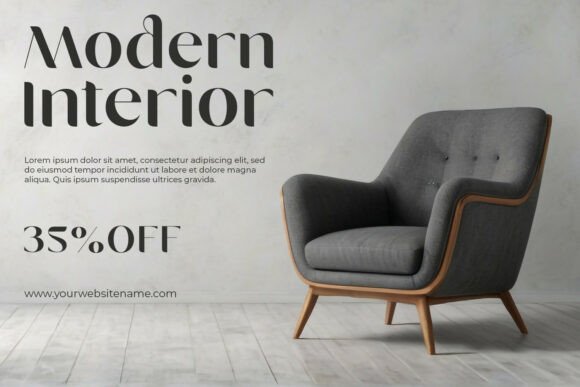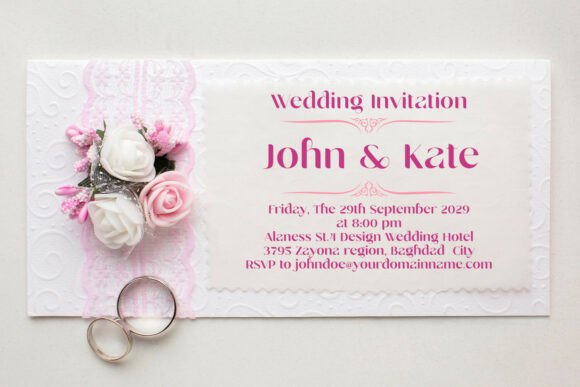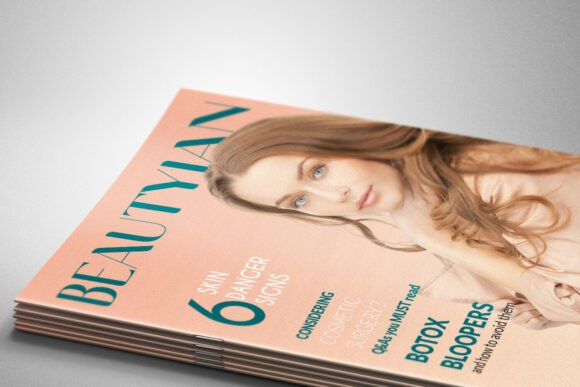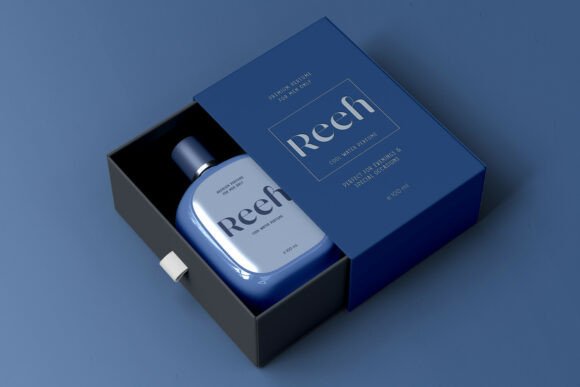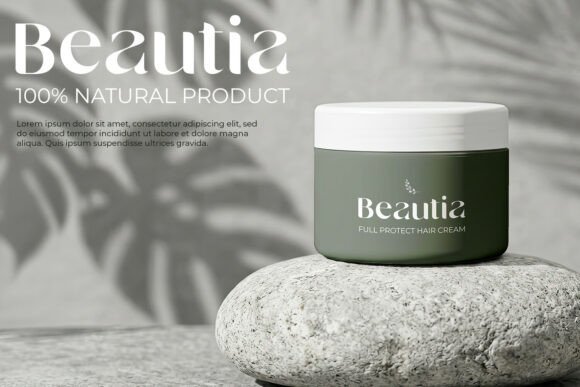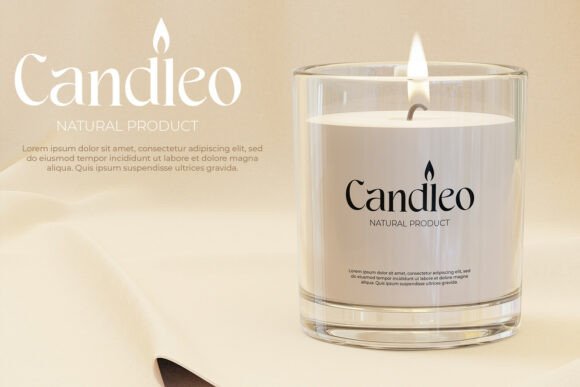
I still remember the frustration of working on a project for a high-end fashion client, searching for a font that exuded luxury and sophistication. The design brief called for a typeface that was both grounded and ethereal, but everything I tried seemed to fall flat. That was until I stumbled upon Avena, a serif font that redefined modern luxury. In this article, I’ll share my experience with Avena, its features, and how to make the most of this stunning typeface.
What is Avena?
Avena is a sophisticated serif font designed for those who want their branding to feel both luxurious and refined. Its elegant proportions and innovative serif details provide a high-end “boutique” aesthetic that is perfect for fashion-forward designs. Whether you’re crafting a minimalist logo or a stunning magazine header, Avena delivers a professional, polished presence that feels timeless yet undeniably contemporary.
My Honest Review of Avena
The Good ✨
- ✅ Elegant proportions and refined serif details
- ✅ High-end aesthetic perfect for luxury brands
- ✅ Versatile and adaptable for various design applications
- ✅ Easy to read and highly legible
The Not-So-Good 🤔
- ⚠️ Limited availability of certain OpenType features in some platforms
- ⚠️ May not be suitable for very small font sizes or body text
The Backstory of Avena
Avena was designed with the goal of creating a typeface that embodies the essence of modern luxury. Inspired by the elegance of high-end fashion and the sophistication of luxury brands, Avena’s creator aimed to craft a font that would elevate branding and design to new heights. With its refined serif details and elegant proportions, Avena is the perfect choice for those seeking a sophisticated and luxurious aesthetic.
Q: What is Avena’s personality?
A: Avena’s personality is sophisticated, elegant, and refined, making it perfect for luxury brands and high-end designs.
Q: Can I use Avena for body text?
A: While Avena is highly legible, it may not be the best choice for very small font sizes or body text. Consider using it for headlines, titles, or captions instead.
Q: Does Avena support OpenType features?
A: Yes, Avena supports OpenType features like ligatures, stylistic alternates, and glyphs, but availability may vary depending on the design platform.
Q: Is Avena suitable for digital designs?
A: Absolutely! Avena is designed to be versatile and adaptable, making it perfect for both print and digital designs.